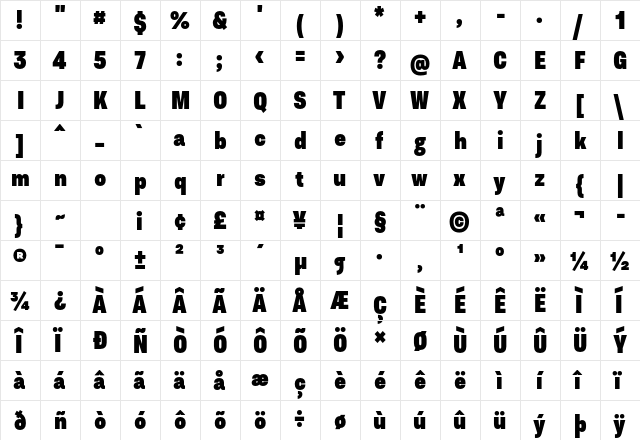
Asket Condensed ExtraBold
Design Context for Asket Condensed Typeface
Asket Condensed is a composed and adaptable typeface that performs quietly and consistently across a wide range of design contexts. The heavy weight commands attention and anchors typographic hierarchies. Its narrow stance lets it pack a punch even in space-constrained designs.
Pro Tip: Use Asket Condensed in both headline and body roles to test its range before committing to a single application.